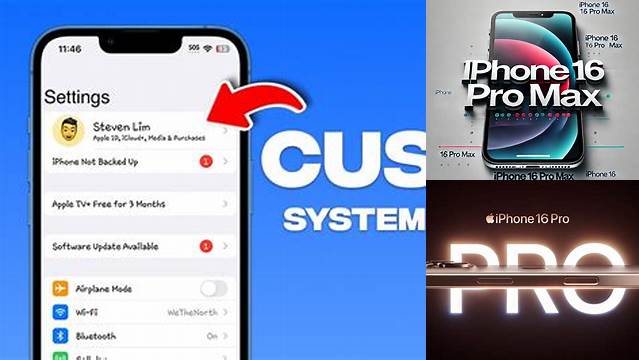
Best Fonts For IPhone 16 Pro Max: Top System Choices
Choosing the right font can significantly enhance your experience on the iPhone 16 Pro Max. The best system fonts not only improve readability but also reflect your personal style. In this comprehensive guide, we'll explore the top font options available on your iPhone 16 Pro Max, discussing their characteristics, use cases, and how to customize them to suit your preferences. So, if you're looking to make your device uniquely yours, let's dive in and discover the perfect font!
H2: Understanding System Fonts on iPhone
When we talk about system fonts on your iPhone 16 Pro Max, we're referring to the fonts that come pre-installed on the device. These system fonts are designed to be legible and visually appealing, ensuring a seamless user experience across various applications and interfaces. But why are they so important? Well, the right font can drastically improve readability, making it easier on the eyes when you're reading long articles or emails. Plus, it adds a touch of personalization to your device. Different fonts evoke different feelings and styles, so choosing one that resonates with you can make your iPhone feel more like your own. Ever wondered how to change these fonts? It's simpler than you might think! Let's get into the nitty-gritty of the available options and how to tweak them to your liking.
H2: Default Font Options on iPhone 16 Pro Max
The iPhone 16 Pro Max comes with a range of default font options, each with its own unique personality. You've got the classic San Francisco, which is the standard system font known for its clarity and legibility. It's a safe bet if you want something clean and modern. Then there's New York, a serif font that brings a touch of elegance and traditional charm. It's great for reading longer texts or if you prefer a more formal look. And let's not forget about options like Helvetica Neue, which offers a streamlined and minimalist aesthetic. Exploring these default font options is the first step in finding the perfect fit for your style and needs. It’s like picking the right outfit – it’s gotta match the occasion and your vibe! So, take some time to browse through the choices and see which one speaks to you.
H2: San Francisco: The Standard Font
San Francisco, the standard font on your iPhone 16 Pro Max, is a workhorse. It's designed with readability in mind, making it an excellent choice for everything from reading articles to browsing social media. What makes San Francisco so special? It’s the font’s ability to adapt its weight and spacing based on the size at which it’s displayed. This means it looks equally good whether it’s a tiny label or a large heading. The clean, modern lines of San Francisco make it a versatile option that works well in almost any context. If you're someone who values clarity and simplicity, San Francisco might just be your perfect match. It's the font equivalent of a well-tailored suit – always appropriate and effortlessly stylish. So, if you're looking for a reliable and easy-to-read font, give San Francisco a try.
H2: Exploring New York Serif on iPhone
If you’re looking to add a touch of sophistication to your iPhone 16 Pro Max, New York Serif is the font to consider. Unlike the clean lines of San Francisco, New York Serif features elegant serifs (the little feet at the end of each letter) that give it a classic and polished look. This font is particularly well-suited for reading longer texts, as the serifs help guide the eye across the page, reducing eye strain. Imagine reading a novel on your iPhone – New York Serif would be a fantastic choice! It brings a sense of traditional charm to your device, making it feel a bit more like reading a physical book. So, if you appreciate the finer details and want a font that exudes elegance, give New York Serif a try. It’s like adding a touch of class to your digital world.
H2: Helvetica Neue: A Minimalist Choice
For those who lean towards a minimalist aesthetic, Helvetica Neue is a stellar choice on your iPhone 16 Pro Max. This font is all about clean lines and simplicity, offering a streamlined look that’s both modern and timeless. Helvetica Neue is known for its neutral appearance, meaning it doesn’t draw too much attention to itself. Instead, it lets the content shine. It’s like the white t-shirt of fonts – versatile, understated, and always in style. If you appreciate a clutter-free design and want a font that’s easy on the eyes, Helvetica Neue might just be your perfect match. It’s a great option for anyone who wants their iPhone to have a sleek and contemporary feel. So, if you’re a fan of minimalism, give Helvetica Neue a whirl!
H2: Changing Font Size on iPhone 16 Pro Max
One of the great things about the iPhone 16 Pro Max is how customizable it is, and that includes font sizes. Changing the font size can make a huge difference in your overall user experience. If you find yourself squinting at your screen, bumping up the font size can relieve eye strain and make reading much more comfortable. On the other hand, if you prefer to fit more content on the screen, you can decrease the font size. It’s all about finding that sweet spot that works best for your eyes and your needs. Luckily, Apple makes it super easy to adjust font sizes. Just head to your Settings, tap on Display & Brightness, and then Text Size. From there, you can use the slider to adjust the font size to your liking. It’s a simple tweak that can have a big impact on your daily use of your iPhone.
H2: Adjusting Font Weight and Boldness
Beyond just font size, you can also tweak the font weight and boldness on your iPhone 16 Pro Max. Adjusting the font weight can add another layer of customization to your device. Making the text bolder can improve readability, especially for those with visual impairments. A bolder font can also make headings and important information stand out more, making it easier to scan through content. To adjust the font weight, you can use the Bold Text option in Accessibility settings. Just go to Settings, tap on Accessibility, then Display & Text Size, and toggle on Bold Text. This will apply a bolder weight to the system font across your device. It’s a small change that can make a big difference in how easily you can read and navigate your iPhone.
H2: Using Dynamic Type for Better Readability
Dynamic Type is a fantastic feature on the iPhone 16 Pro Max that automatically adjusts the font size based on your preferences. Using Dynamic Type ensures that text is always legible, no matter the app or context. This is particularly useful for people who struggle with small text or who have visual impairments. With Dynamic Type, you set your preferred text size once, and your iPhone will automatically scale the text accordingly across all compatible apps. It’s a seamless and convenient way to ensure readability without having to manually adjust font sizes in each app. To enable Dynamic Type, go to Settings, tap on Accessibility, then Display & Text Size, and adjust the Larger Text slider. You can even choose to enable Larger Accessibility Sizes for an even bigger text option. Dynamic Type is a game-changer for anyone who values readability and ease of use.
H2: Third-Party Font Apps: A Deeper Dive
While the default font options on the iPhone 16 Pro Max are excellent, sometimes you might crave something a bit more unique. That’s where third-party font apps come in! These apps offer a wide array of fonts, allowing you to completely transform the look and feel of your device. Imagine having access to hundreds, even thousands, of different fonts – from whimsical and playful to elegant and sophisticated. It’s like having a whole wardrobe of fonts to choose from! However, it's worth noting that using third-party fonts on iOS isn't as straightforward as on some other operating systems. You typically can’t change the system-wide font, but you can use these fonts within apps that support custom fonts, like Pages, Keynote, and certain social media apps. So, while you can't change the font everywhere, you can still add a personal touch to your content creation and communication. If you're feeling adventurous and want to explore a wider range of font styles, third-party font apps are definitely worth checking out.
H2: iPhone Fonts and Graphic Design
Your iPhone 16 Pro Max can be a powerful tool for graphic design, and your choice of fonts is crucial in creating visually stunning designs. iPhone fonts and graphic design go hand in hand, as typography plays a significant role in conveying your message and aesthetic. Apps like Procreate, Adobe Photoshop Express, and Canva allow you to incorporate custom fonts into your designs, giving you greater creative freedom. When selecting fonts for graphic design projects, consider the overall style and message you want to convey. A clean sans-serif font might be ideal for modern designs, while a classic serif font can add a touch of elegance. Experiment with different font pairings to create visual interest and hierarchy. Pay attention to kerning, leading, and tracking to ensure your text is legible and visually appealing. By mastering font selection and typography on your iPhone, you can create professional-quality graphic designs on the go.